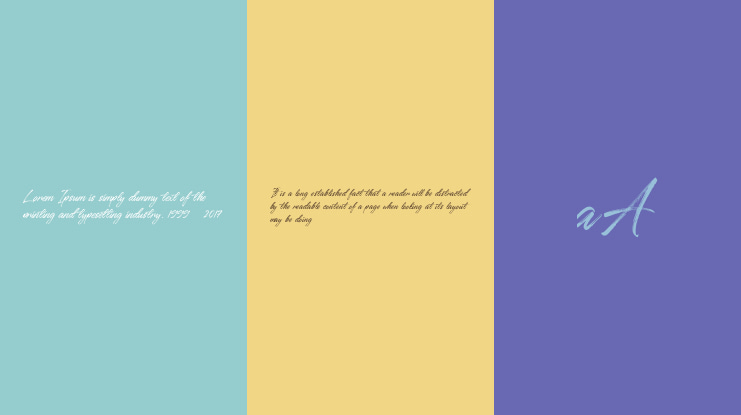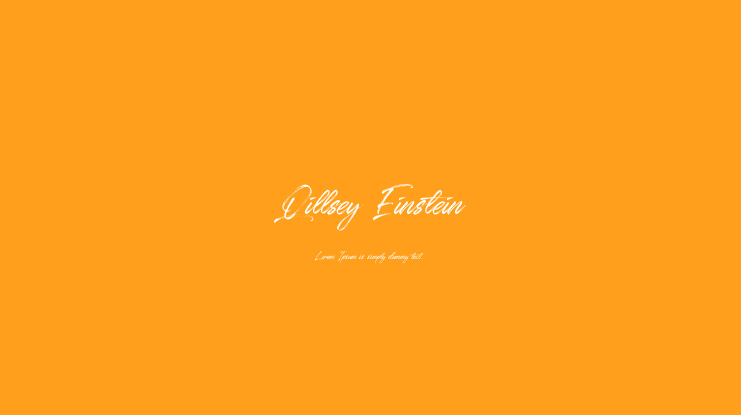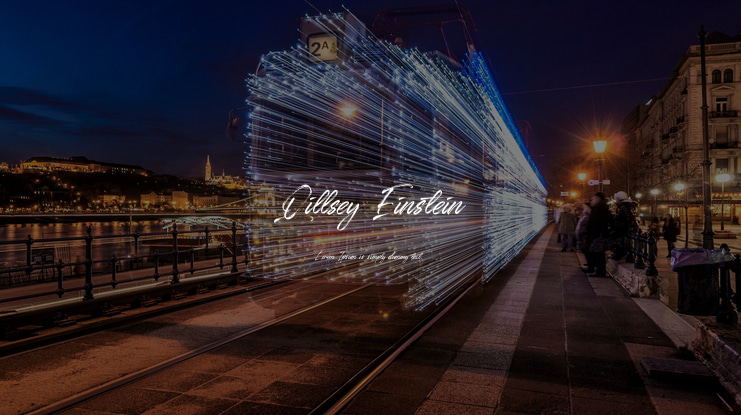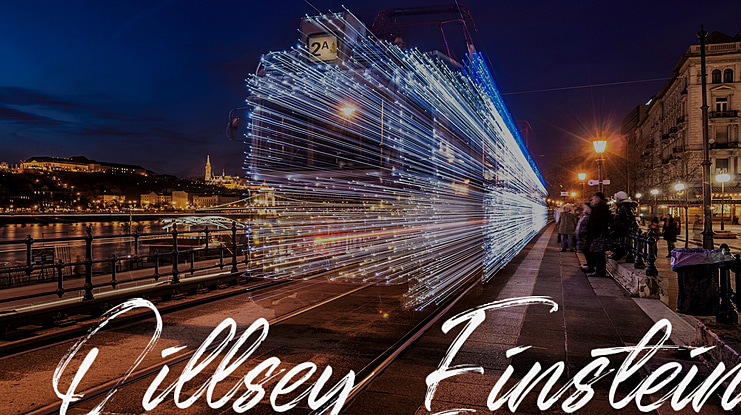
Qillsey Einstein Font
Ghazi Humam Fauzan
Introducing Qillsey Einstein, a type of script that has a natural scratch texture. I made Qillsey Einstein by using a Japanese calligraphy pen that makes the impression seem natural. My font is complete with 3 pieces of StylisticSet which will make the writing more beautiful and charming.